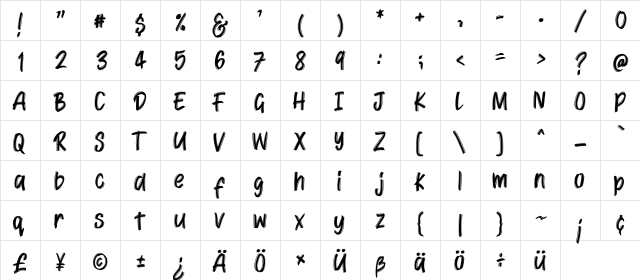
Jattayu Regular
| Foundry | Creatype Studio Co. |
| Designer | Rian Rahardi |
Design Context for Jattayu Typeface
Jattayu is a composed and adaptable typeface that performs quietly and consistently across a wide range of design contexts.